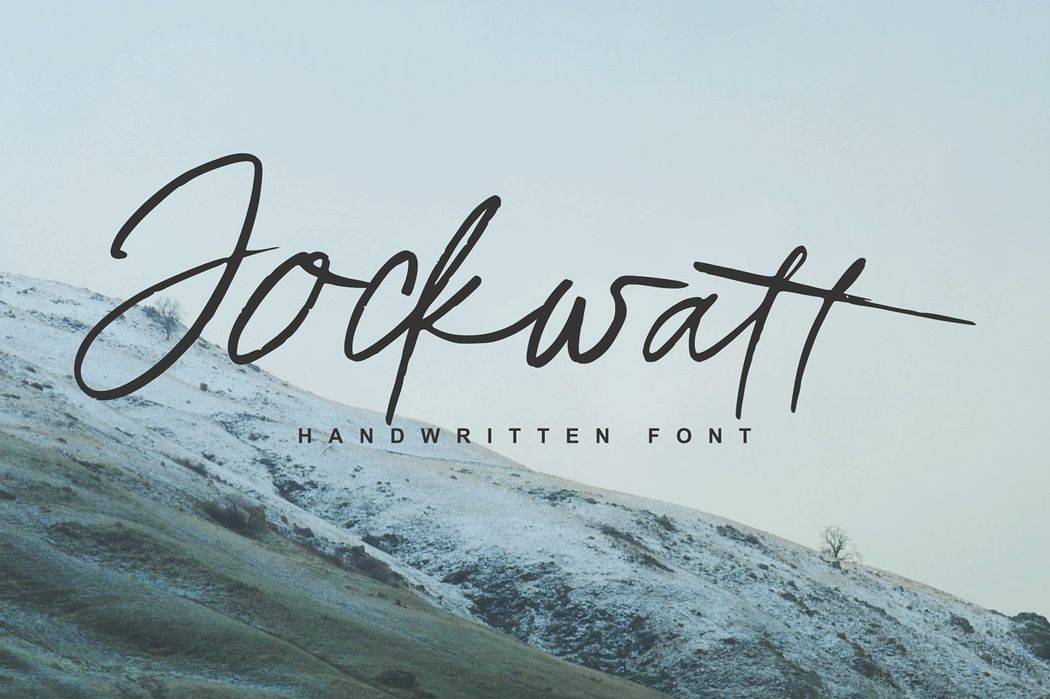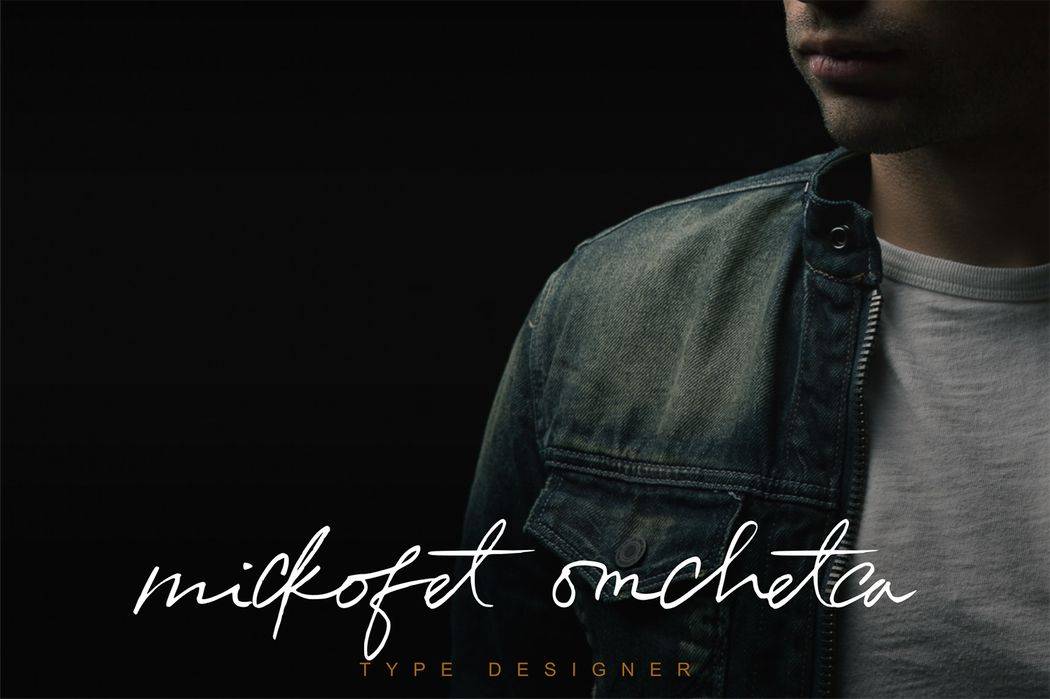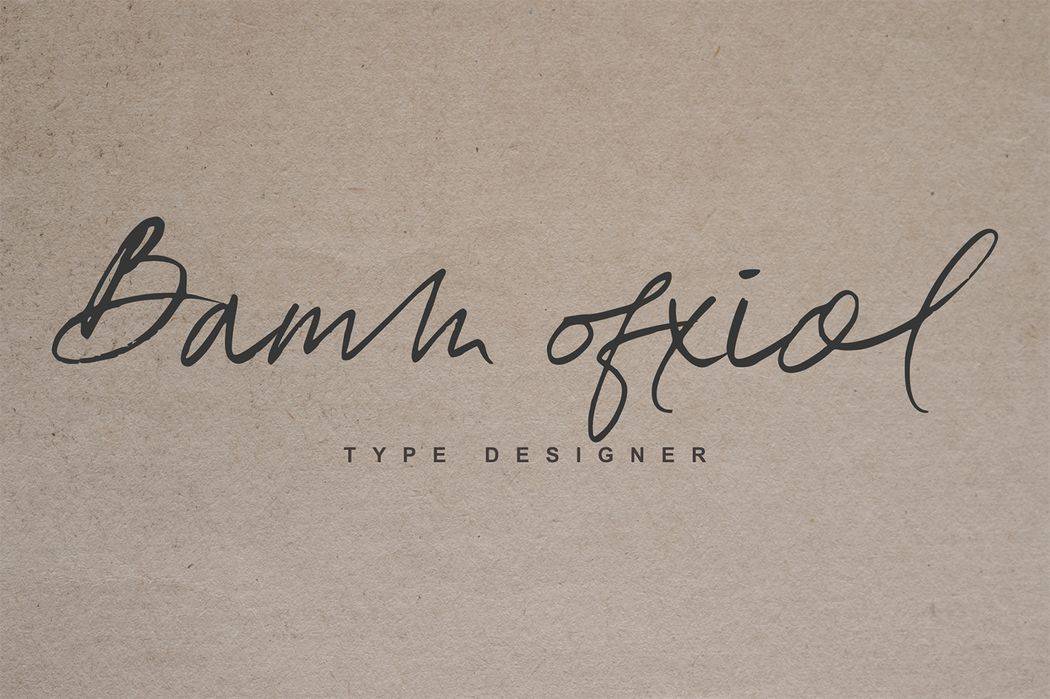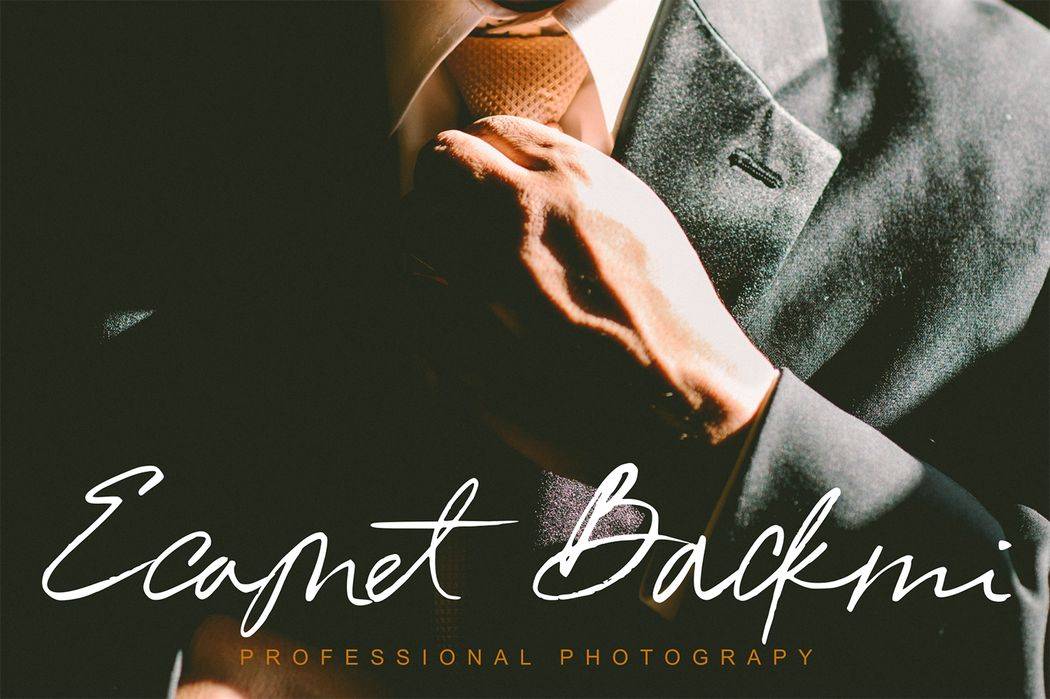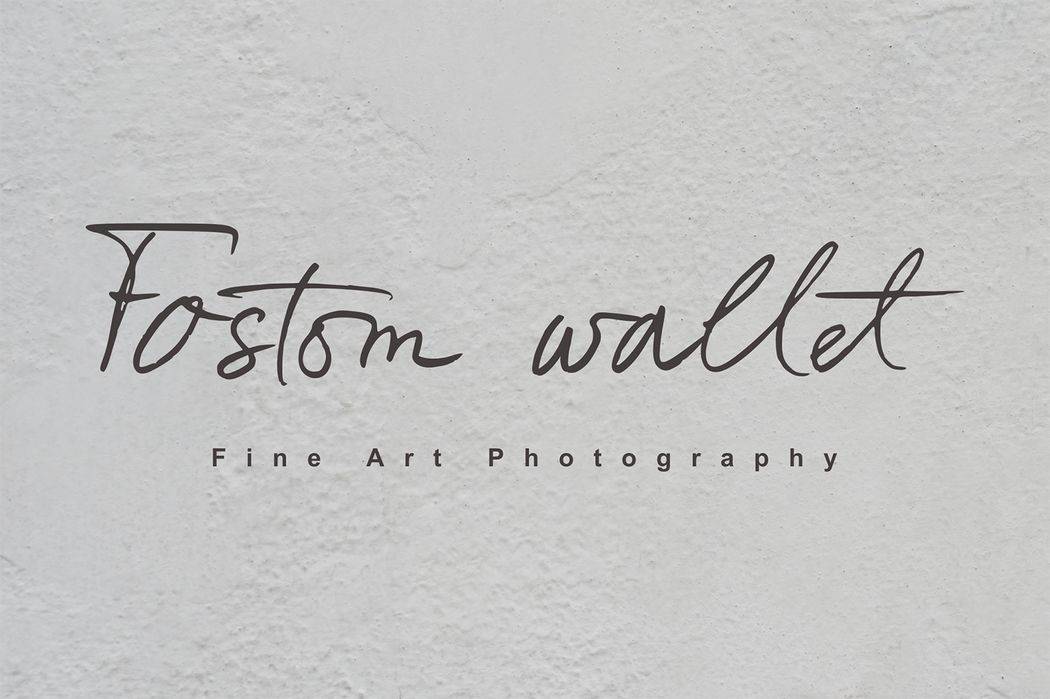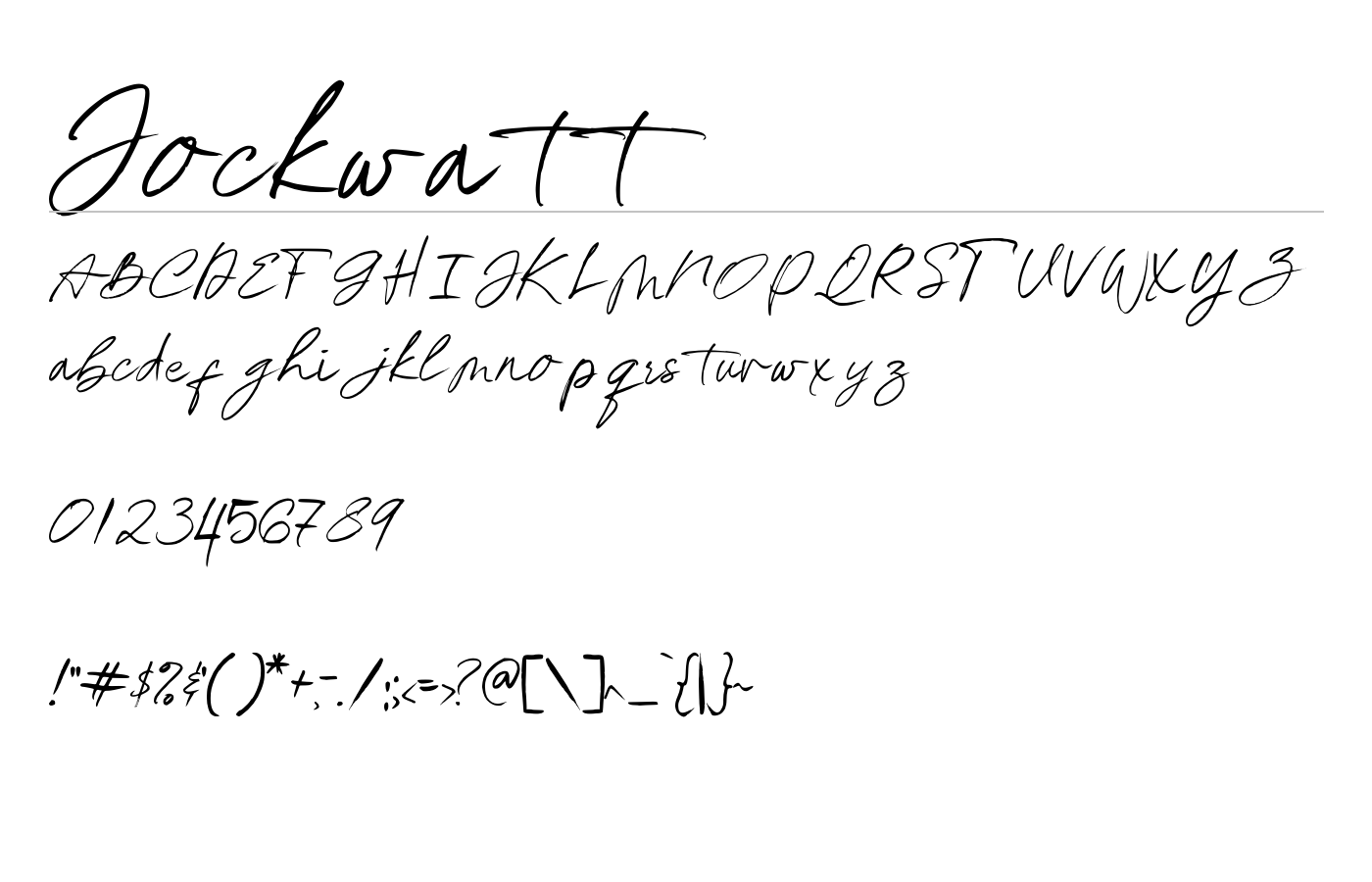
Jockwatt is a delicate, hand-drawn script font that captures a natural, personal touch with its thin, flowing strokes and subtle irregularities. Its slender letterforms and casual style evoke a warm, approachable feel, making it ideal for creative branding, invitations, and artistic projects where an intimate, handwritten look is desired. This font works beautifully in designs that seek to convey authenticity, elegance, and a relaxed sophistication.
Jockwatt Font
About Jockwatt Font
| Font family | Jockwatt Font |
| Designer | Pandanwangi2020 |